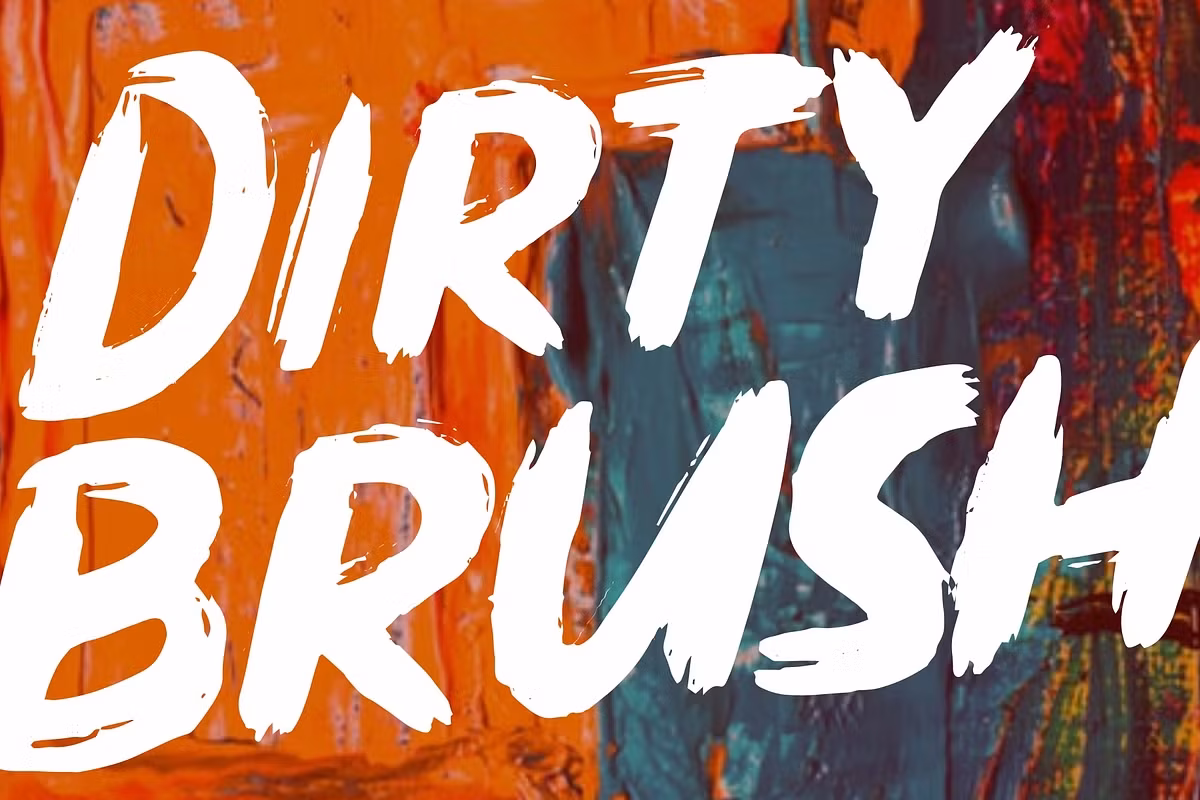
Add a raw, artistic flair to your designs with Dirty Brush, a font that emulates the expressive strokes of a paintbrush. Ideal for projects requiring a handmade, edgy feel, such as posters, album covers, or creative branding.
Features:
Design: A script-style font with textured strokes, capturing the essence of hand-painted lettering.
Usage: Suitable for personal projects, promotional materials, and creative endeavors that benefit from a bold, artistic touch.